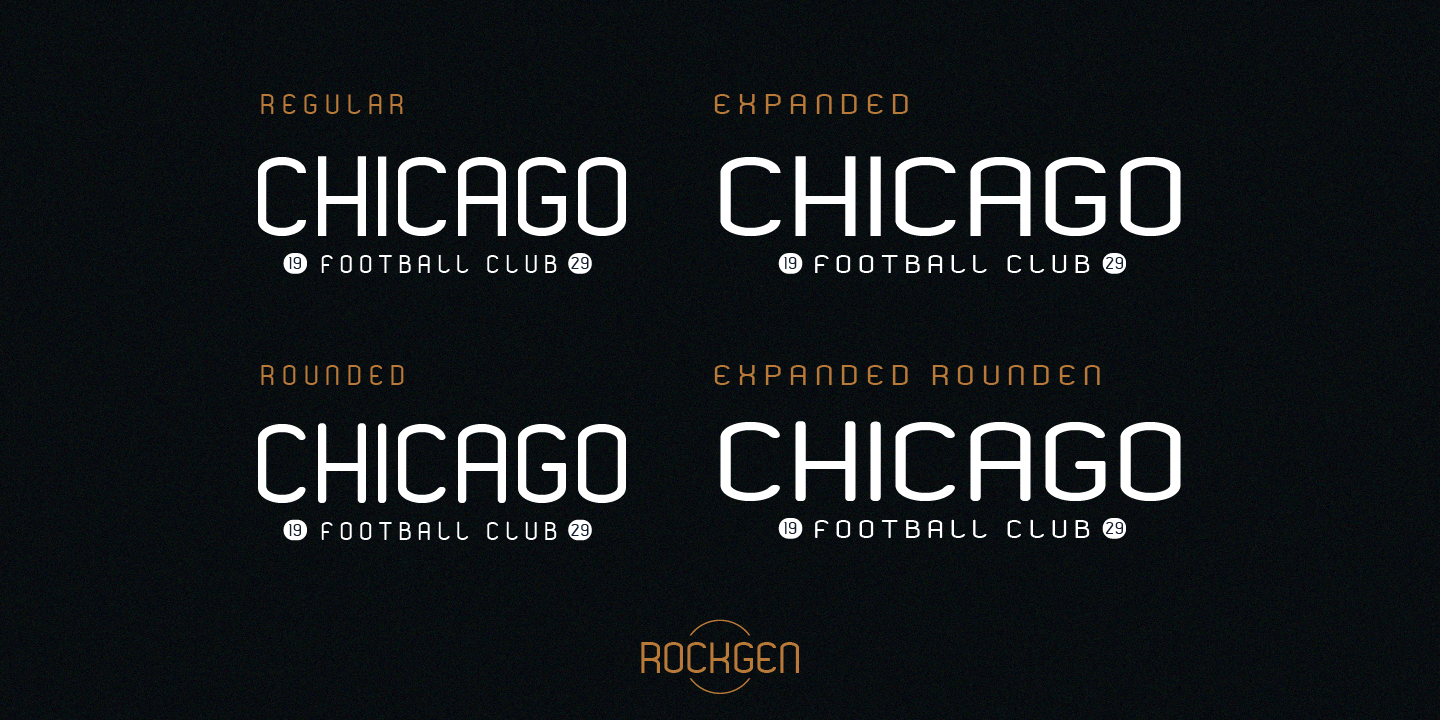
Channel raw power and bold style into your designs with Rockgen Font Free Download. This dynamic display typeface features strong geometric shapes, sharp edges, and a futuristic energy, making it perfect for music branding, gaming graphics, sports apparel, event posters, and tech-inspired visuals. Rockgen Font Free Download is built to stand out, delivering maximum impact and modern appeal.
The aggressive styling of Rockgen Font gives your work an unmistakable edge, ideal for titles and logos that demand attention. Whether you're crafting album art, streaming overlays, promotional banners, or merchandise, this font offers the strength and style to push your message forward with confidence.